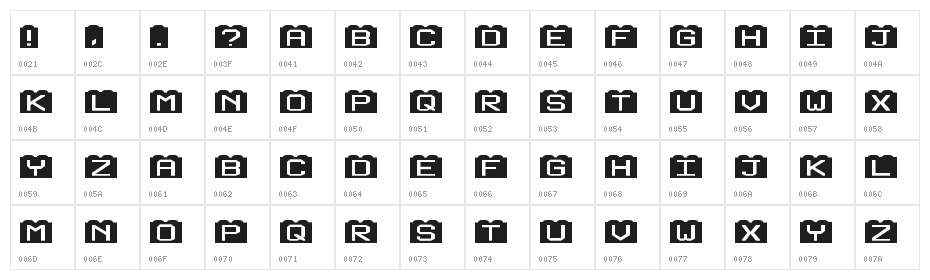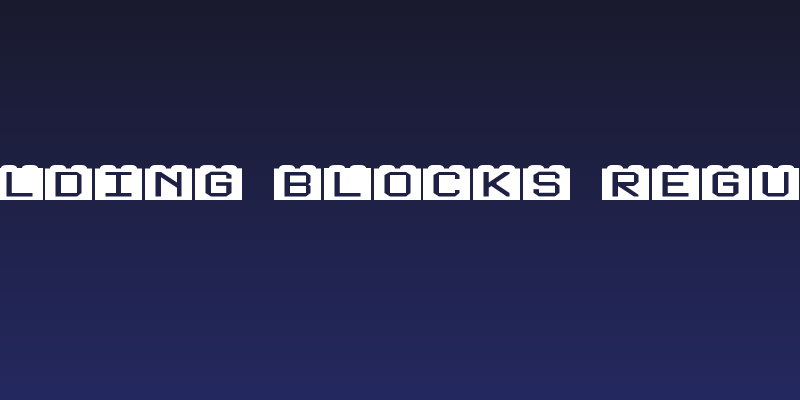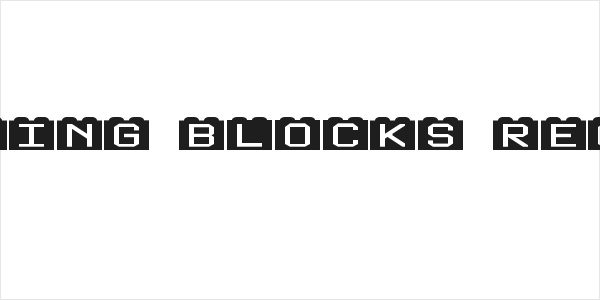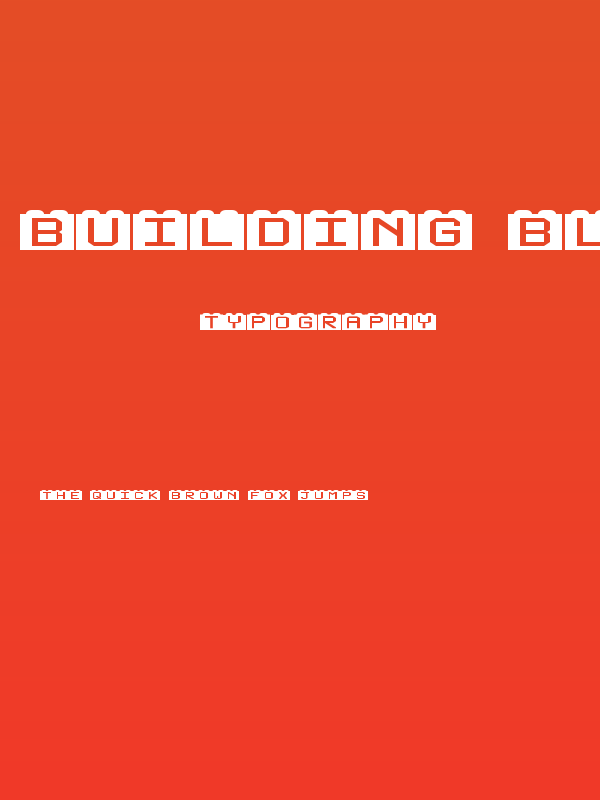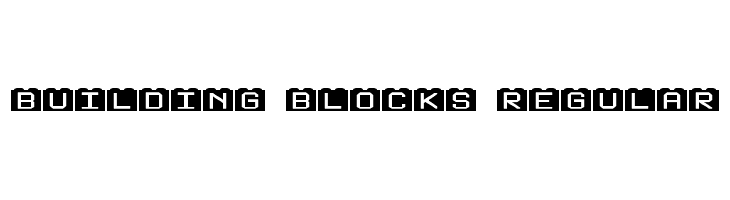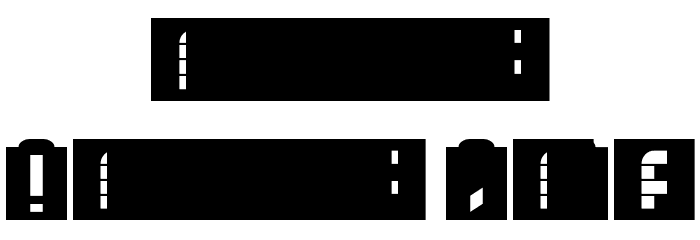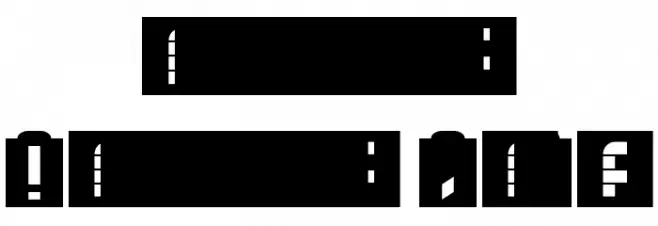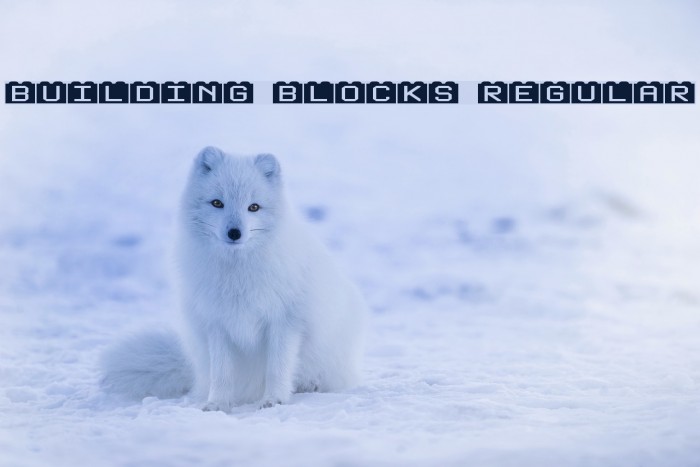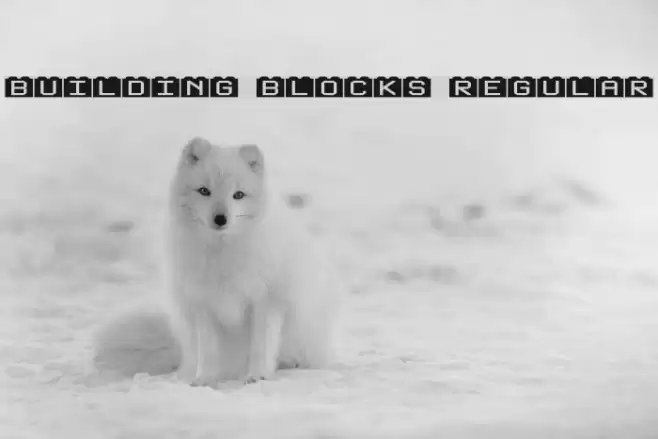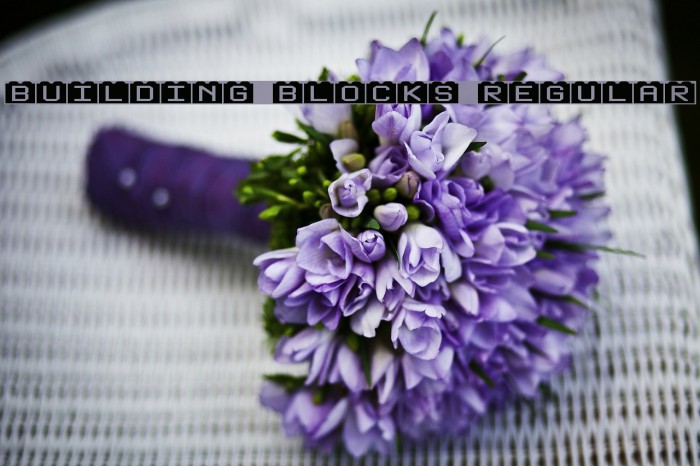
Building Blocks Regular Font
Building Blocks Regular Description
This font features a bold, geometric style with a blocky, modular appearance reminiscent of building blocks. Each character is enclosed within a square, giving it a structured and uniform look. The uppercase and lowercase letters are consistent in height, creating a cohesive and balanced design. The numerals and special characters follow the same blocky pattern, ensuring visual harmony across all elements. The font's distinct style makes it stand out, with a playful yet robust aesthetic that is both modern and eye-catching.
| Proposed Projects | Ideal for children's educational materials, toy packaging, playful branding, and creative posters. |